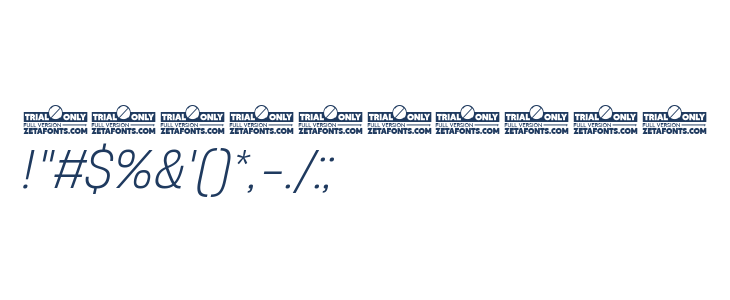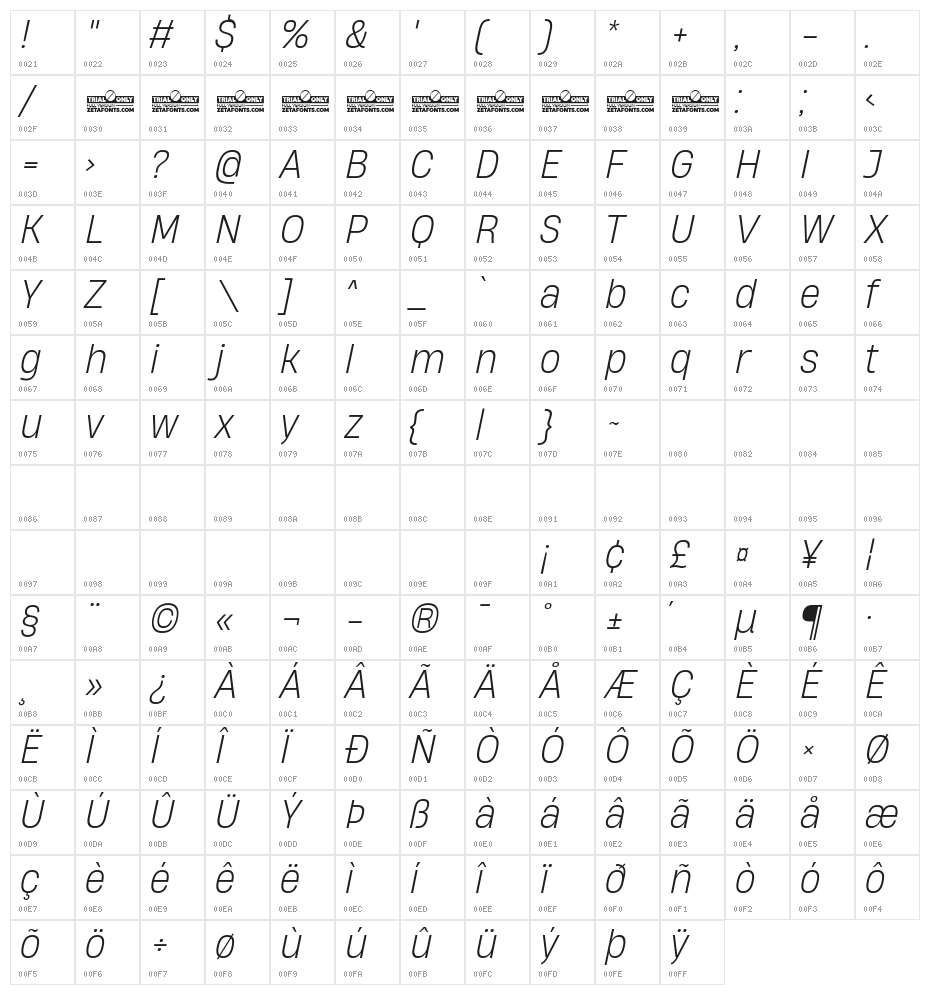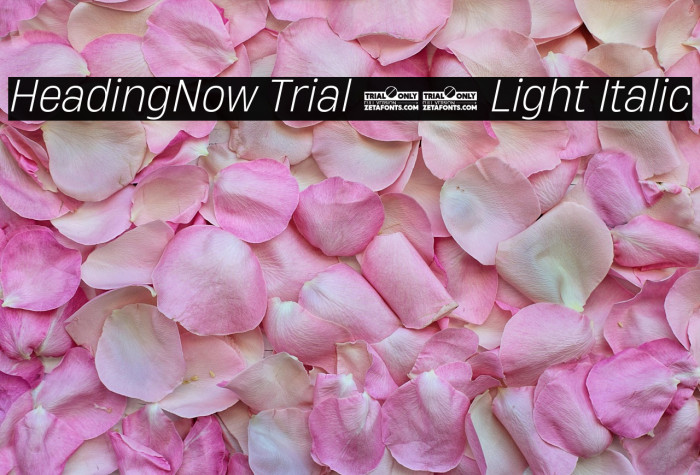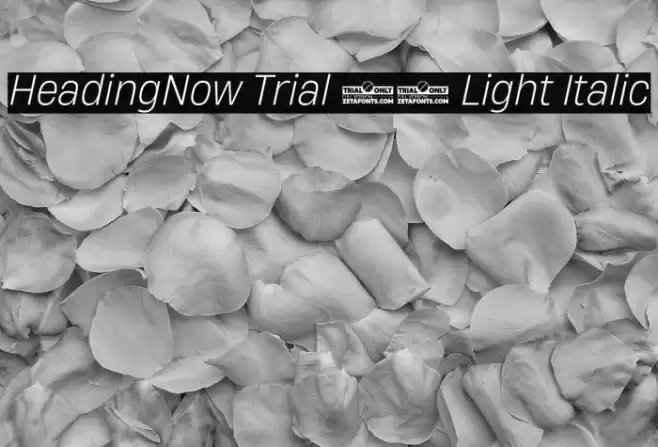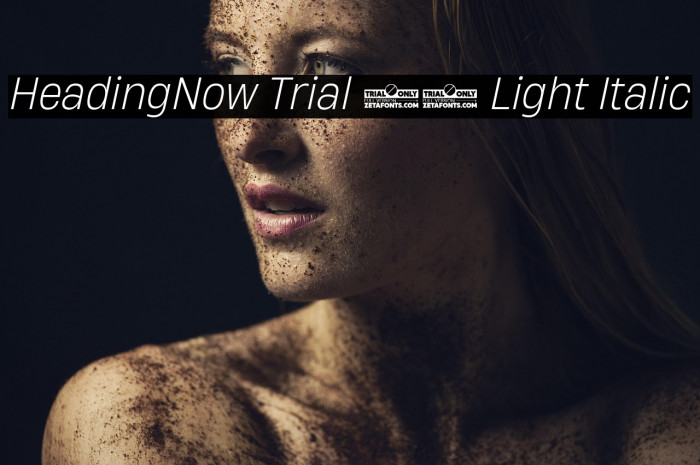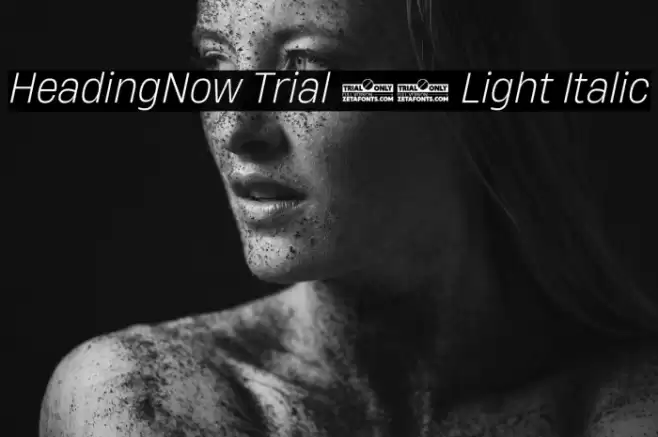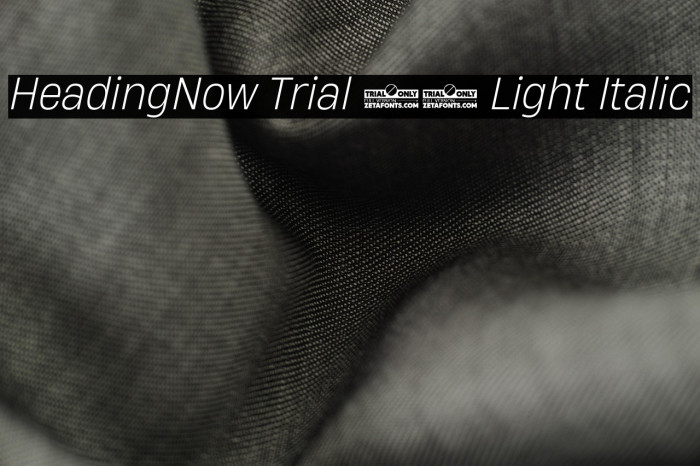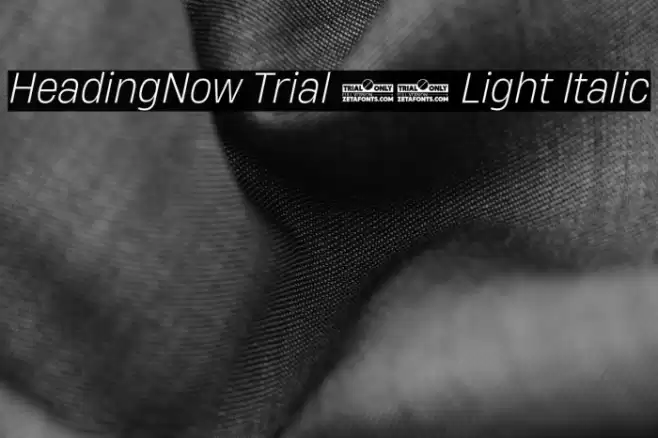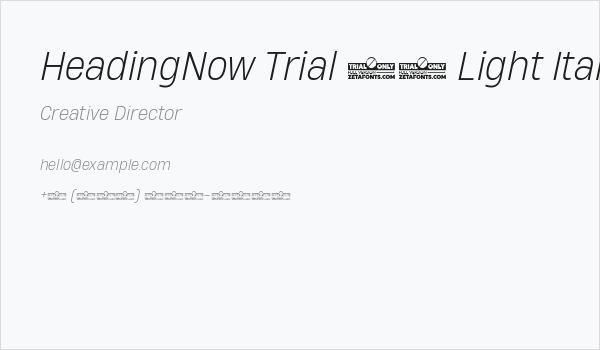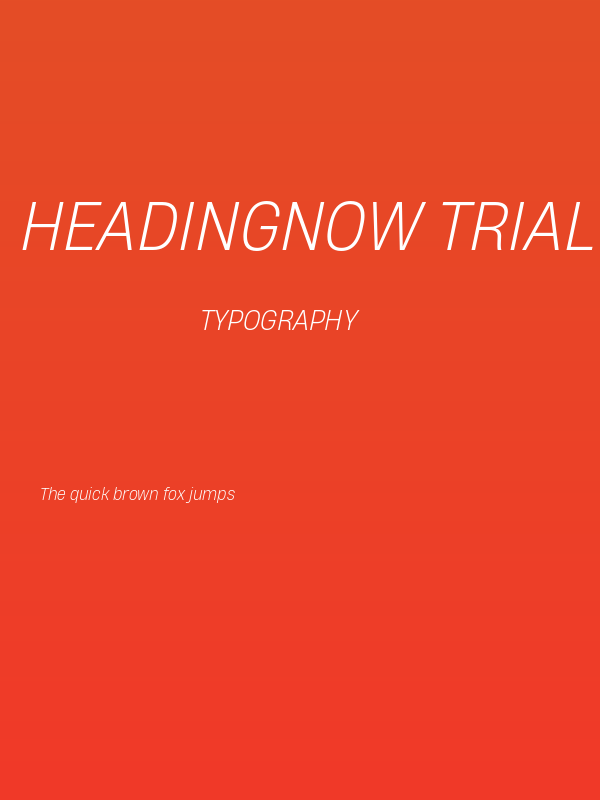
HeadingNow Trial 62 Light Italic Font
HeadingNow Trial 62 Light Italic Description
This font features a sleek and modern design with a light weight and italic style. The characters are elegantly slanted, providing a sense of motion and fluidity. The sans-serif design ensures a clean and uncluttered appearance, making it suitable for contemporary applications. The character spacing is normal, allowing for easy readability while maintaining a sophisticated look. The font's low contrast in stroke thickness contributes to its minimalist and refined aesthetic, making it versatile for various design needs.
| Proposed Projects | Ideal for use in modern branding, editorial design, and digital interfaces where a clean and sophisticated look is desired. |